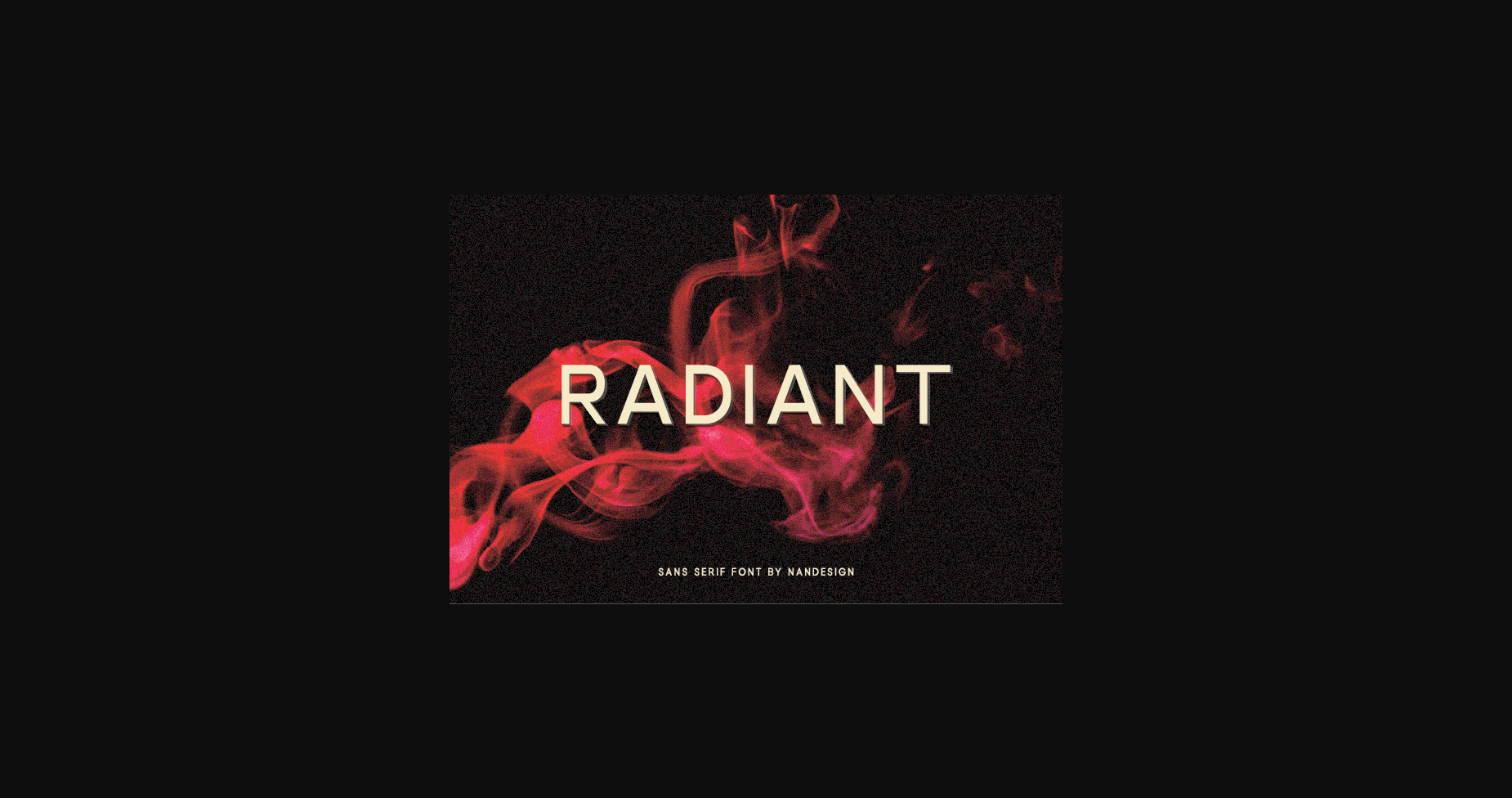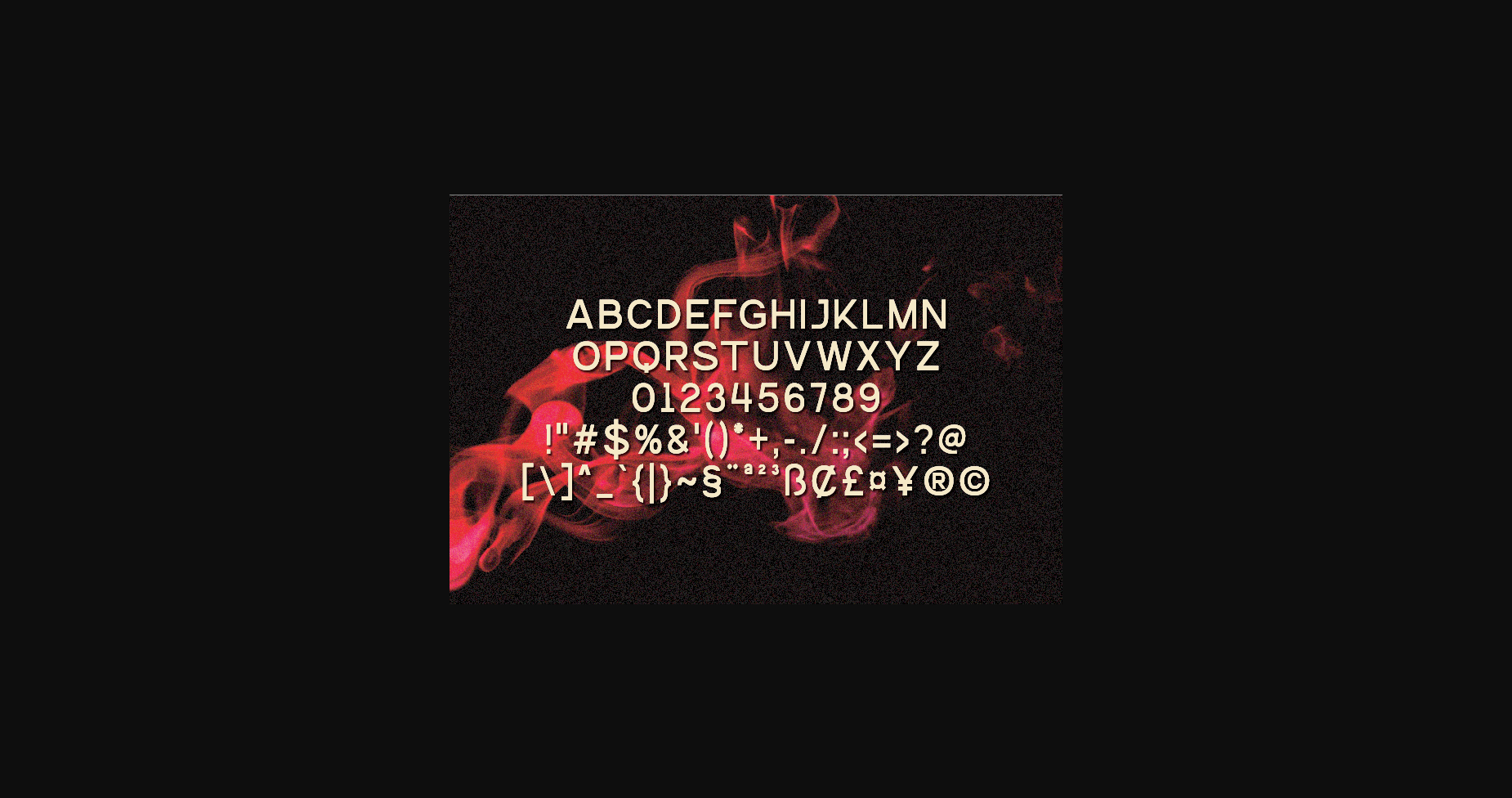
About Radiant Font
Radiant is a cool and simple lettered sans serif font, designed to complement every project you’re working on.
Use it to create beautiful headings, gorgeous invitations, stunning logos, and so much more!